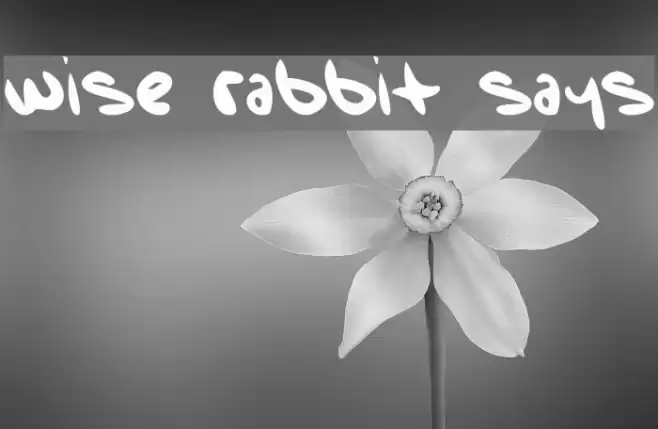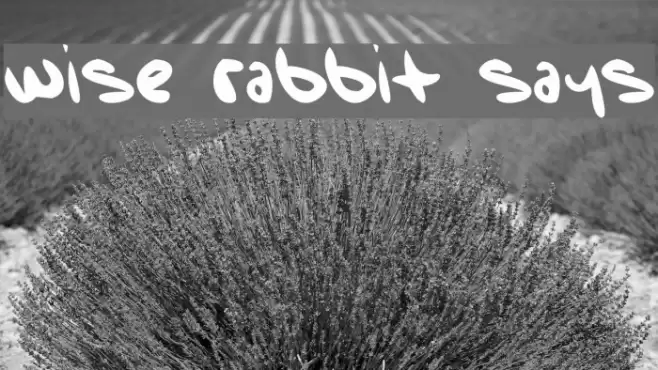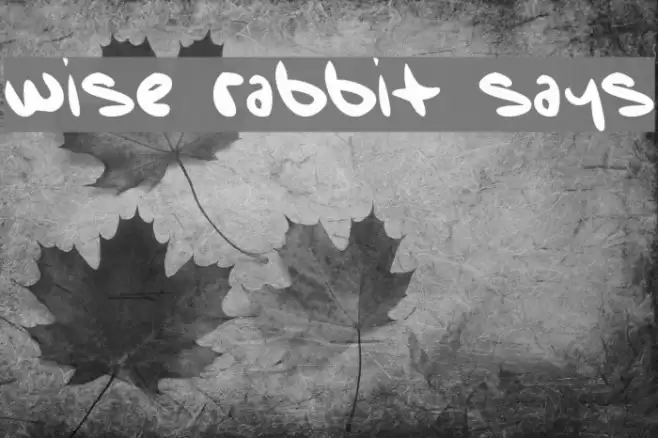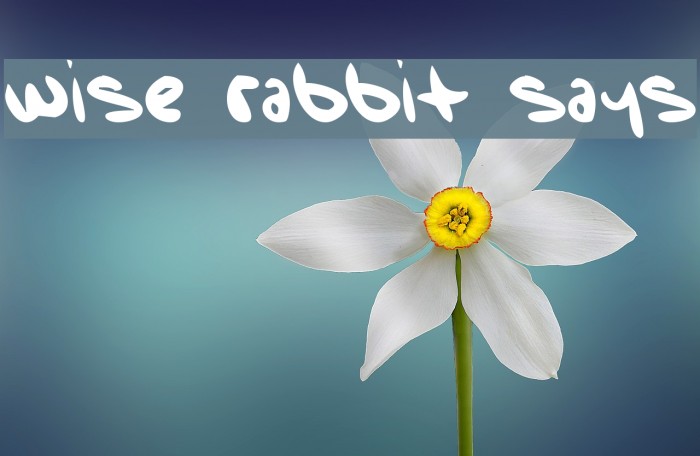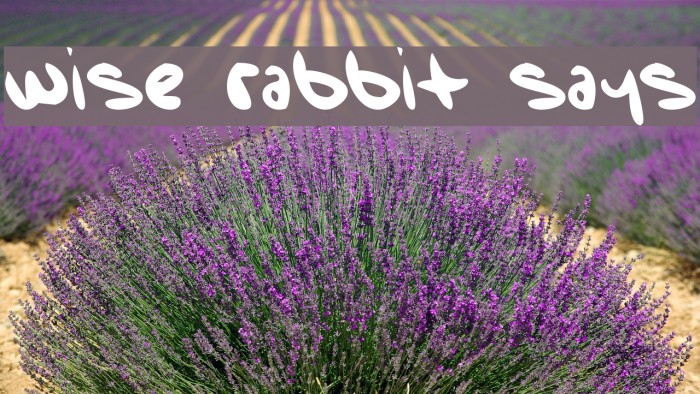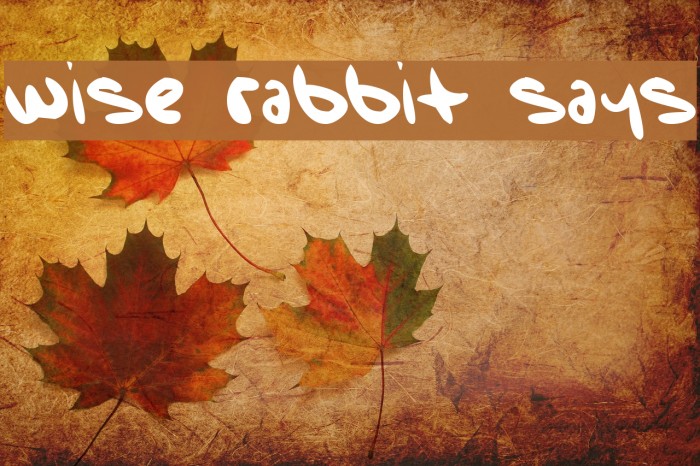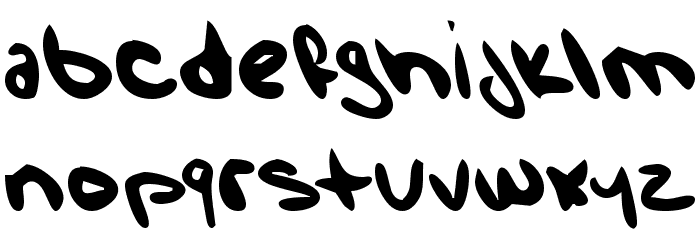
Wise Rabbit Says Font
Wise Rabbit Says Description
This font features a playful and dynamic handwritten style, characterized by its bold and fluid strokes. The letters are slightly slanted, giving a sense of movement and energy. The uppercase and lowercase letters maintain a consistent style, with rounded edges and a casual appearance. The font's unique personality is evident in its irregular shapes and varying line thickness, which adds to its charm and appeal. It's well-suited for projects that require a personal touch or a creative flair, such as invitations, greeting cards, or artistic posters.
A bold, playful handwritten font with fluid strokes and a casual style from Easter fonts.
- Proposed Projects: Ideal for creative projects like invitations, greeting cards, and artistic posters.
- Overall Style: Playful, Creative
- Use Case: Logos, Headlines, Artistic projects